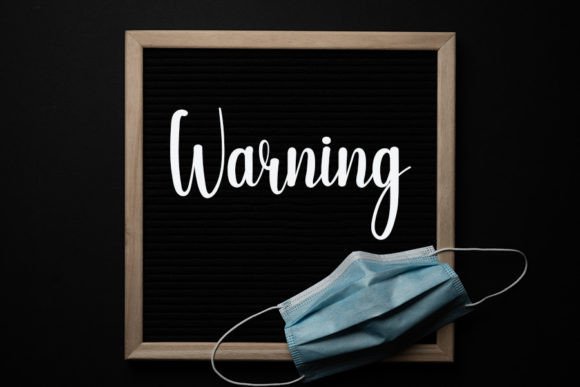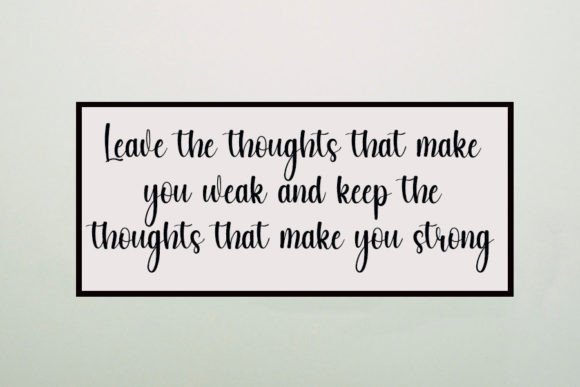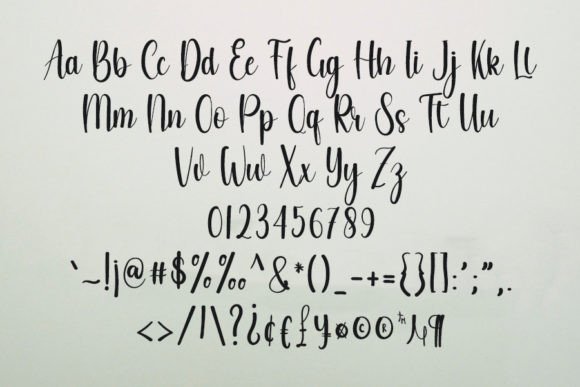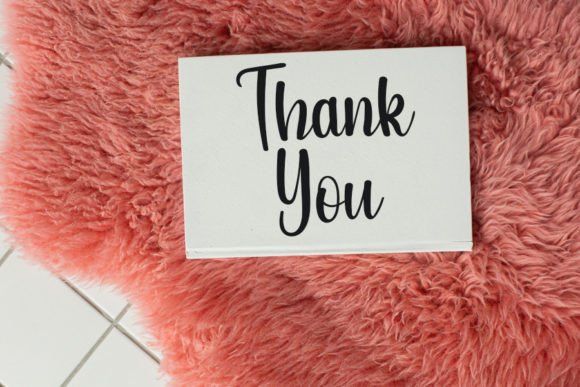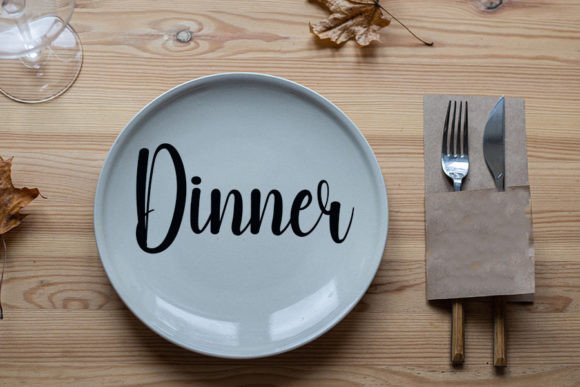
About Fothings Font
“Fothings” is a cool and modern handwritten font that combines a contemporary vibe with spotless, classic calligraphy-inspired forms. This font strikes the ideal balance, maintaining a medium thickness and a variety of characters that enhance the overall beauty of your projects.
The appeal of “Fothings” lies in its ability to bring a sense of modernity and clean design to your creative endeavors. Its handwritten style adds an artistic touch while still being easily readable, making it a versatile choice for a wide range of design applications.
Whether you’re working on branding, logos, posters, invitations, social media graphics, or any project that demands a fresh and contemporary font, “Fothings” is the typeface that can enhance your work and make it stand out.
This font offers both style and readability, ensuring that your projects not only look modern and well-crafted but also effectively convey your intended message.
Embrace “Fothings” with enthusiasm, and you’ll discover how it elevates your creative projects with its modern vibe and clean, balanced forms, making your designs more visually appealing and memorable, regardless of the context or application.